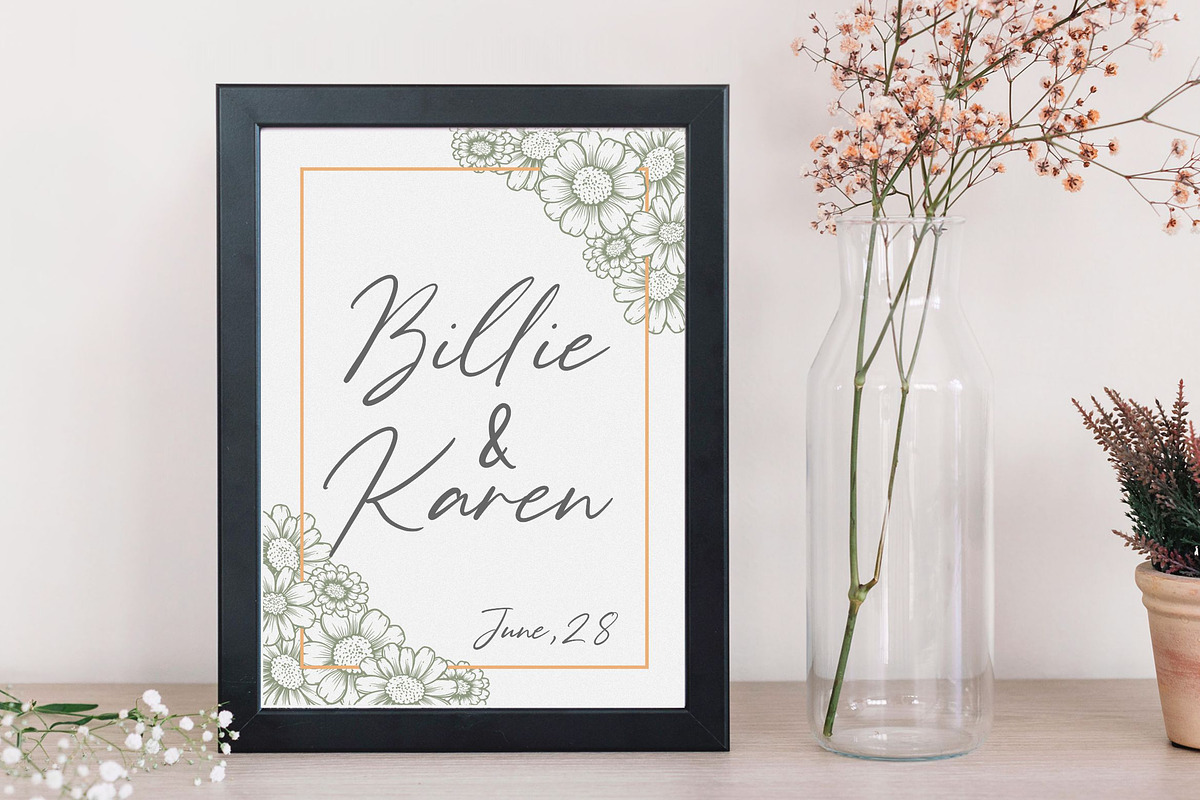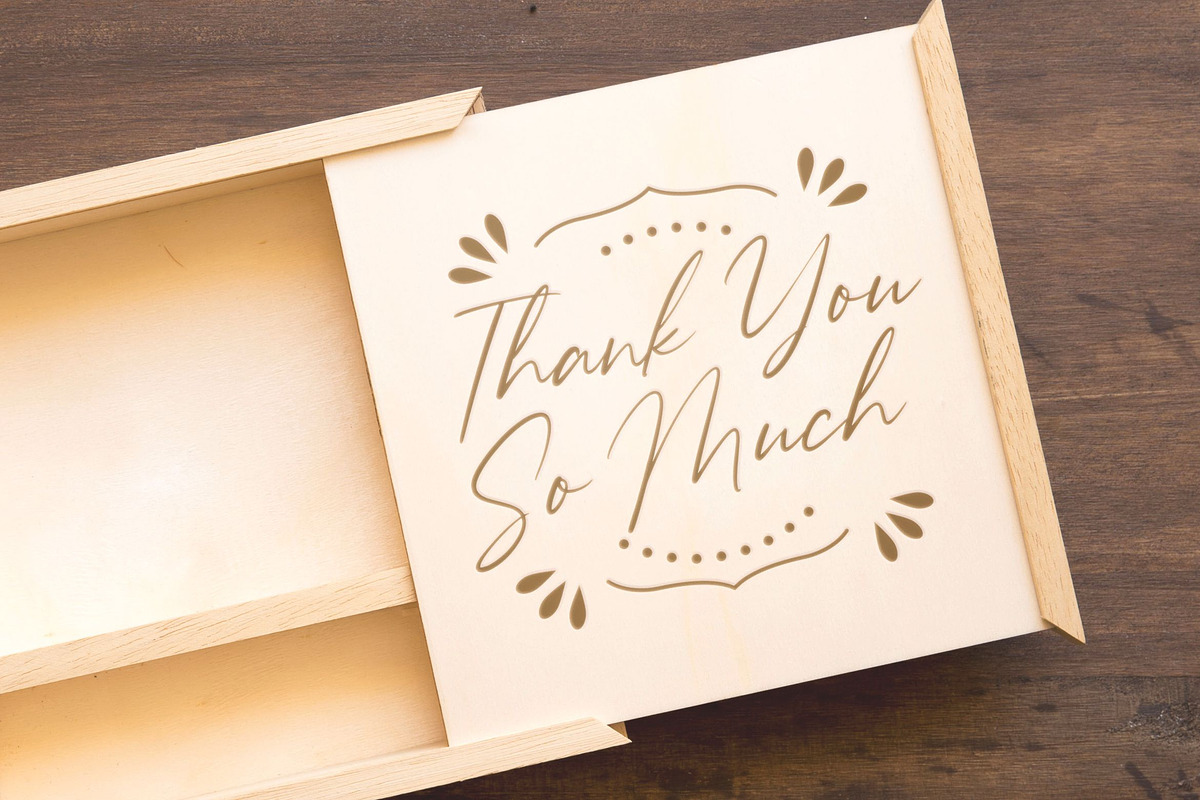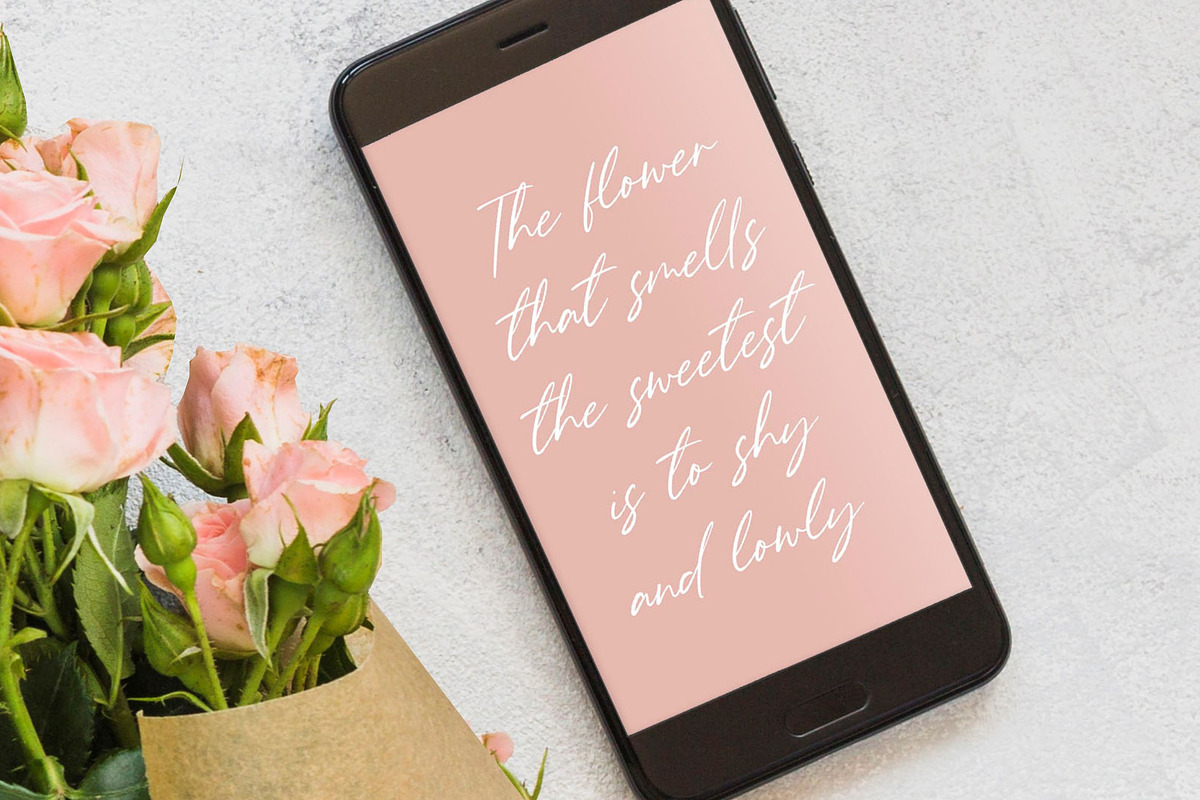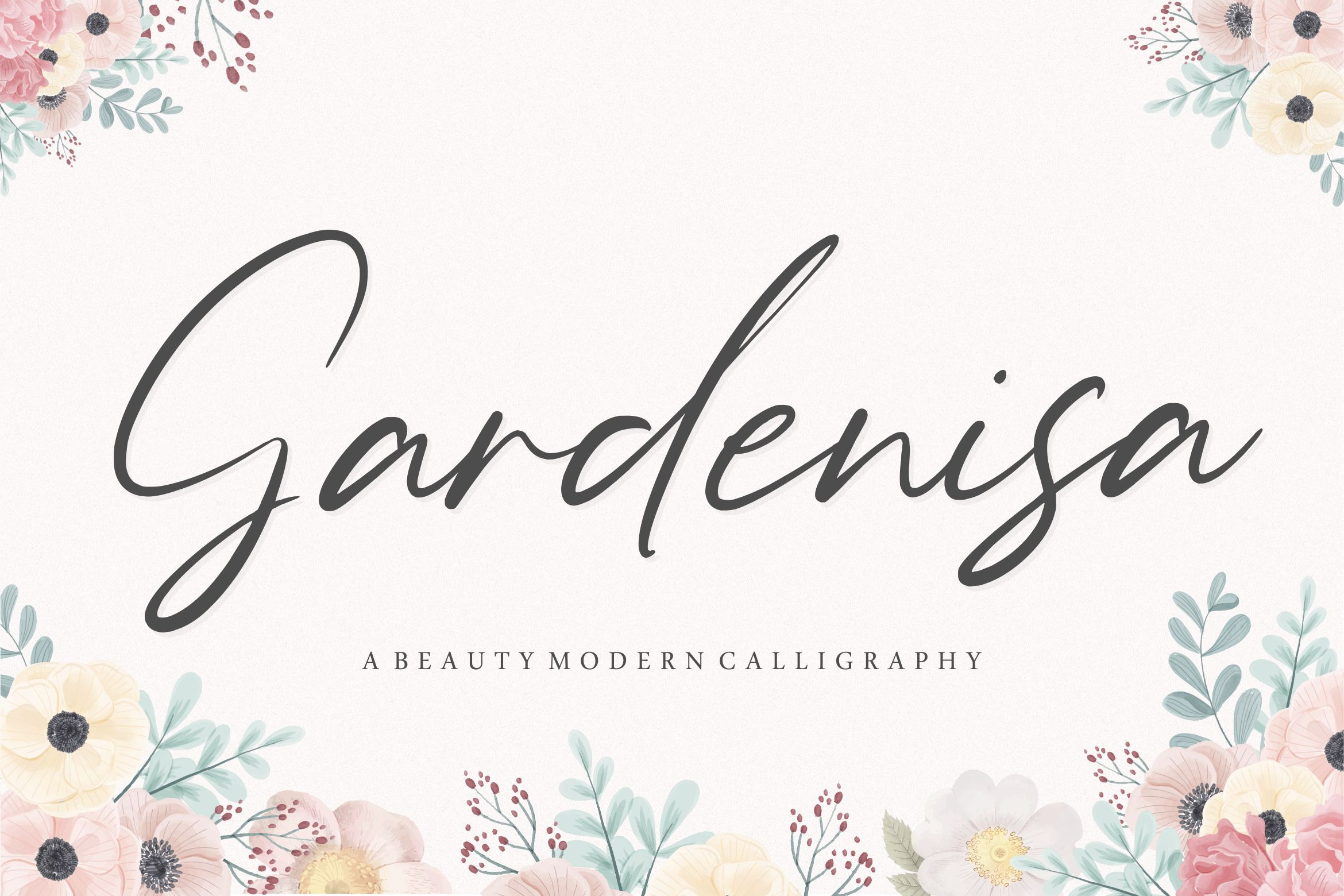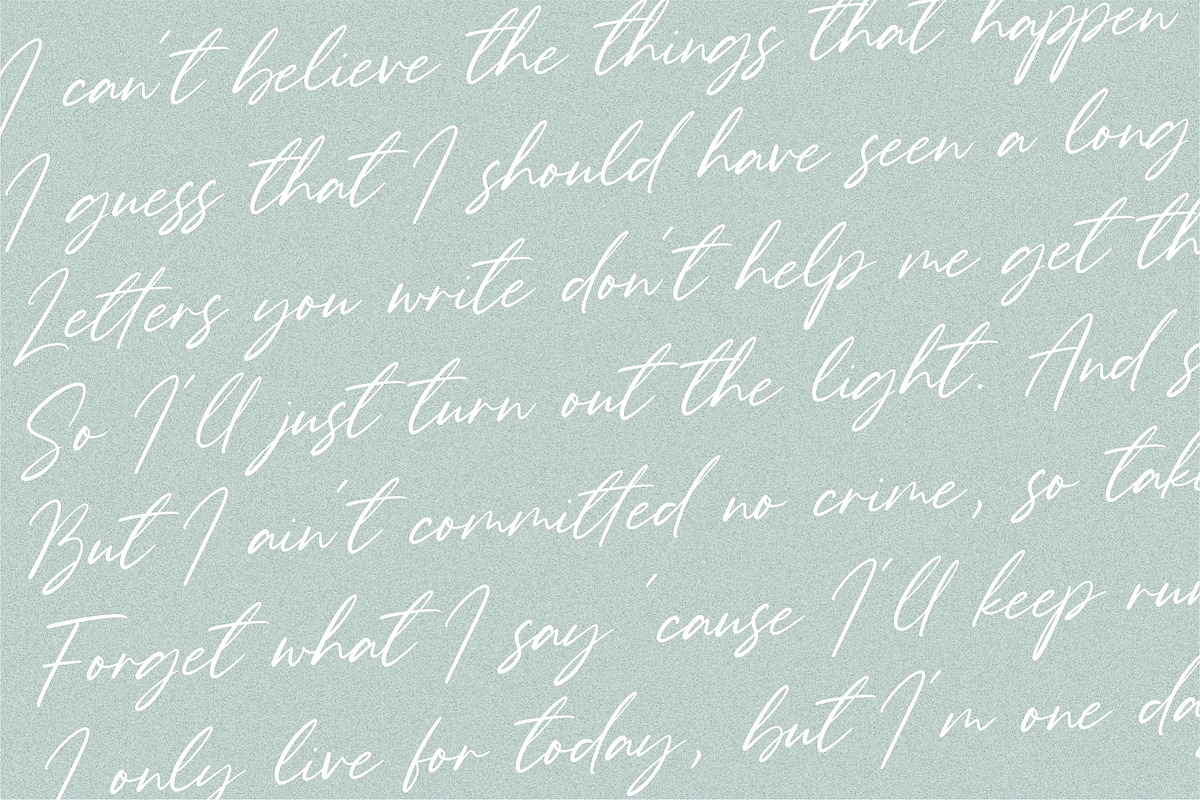
Gardenisa - Modern Calligraphy Font
Proudly Present, Gardenisa Font
Gardenisa is a stylish and incredibly distinct script font. It looks stunning on wedding invitations, thank you cards, quotes, greeting cards, logos, business cards and every other design which needs a handwritten touch.